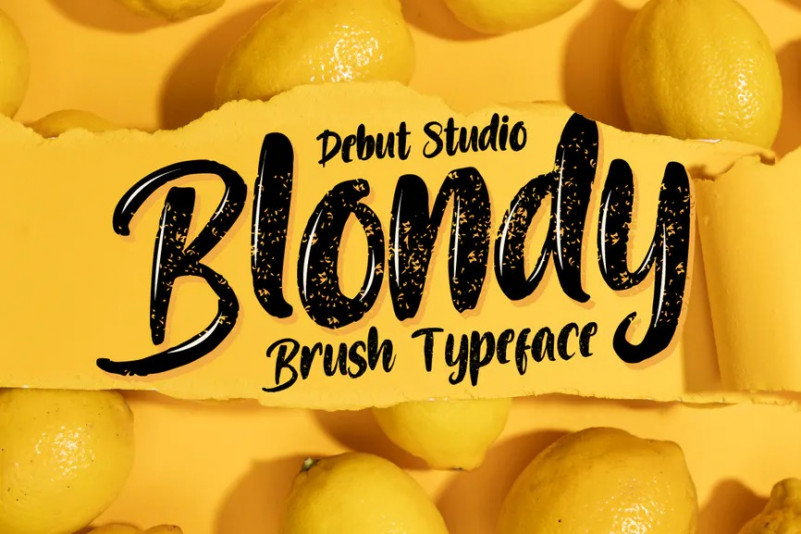
Blondy Font
Introducing the new and tasteful Blondy Brush Typeface ! A fun new font that’s perfect for posters, magazines, food recipes, party invitations, and all other kinds of display type! Blondy Brush Typeface is a vibrant and dynamic hand-drawn font that adds a youthful and energetic vibe to your design projects